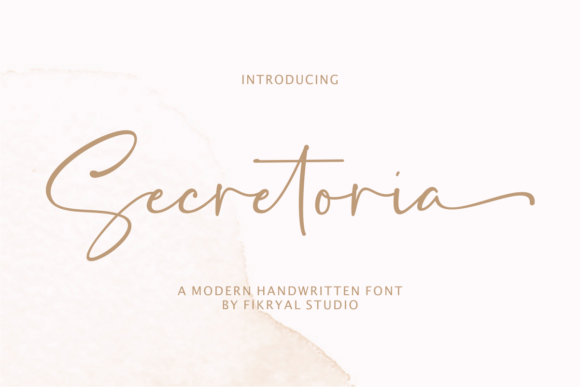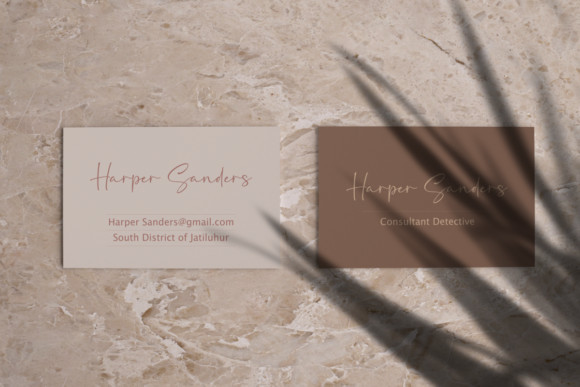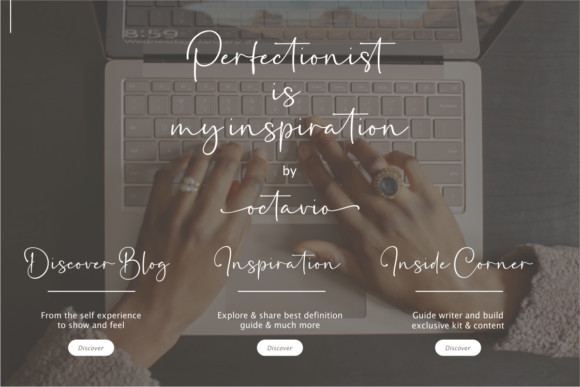
Secretoria Font
Secretoria is a thin and fashionable script font. This font is neatly crafted and highly detailed. Secretoria is PUA encoded which means you can access all glyphs and swashes with ease!